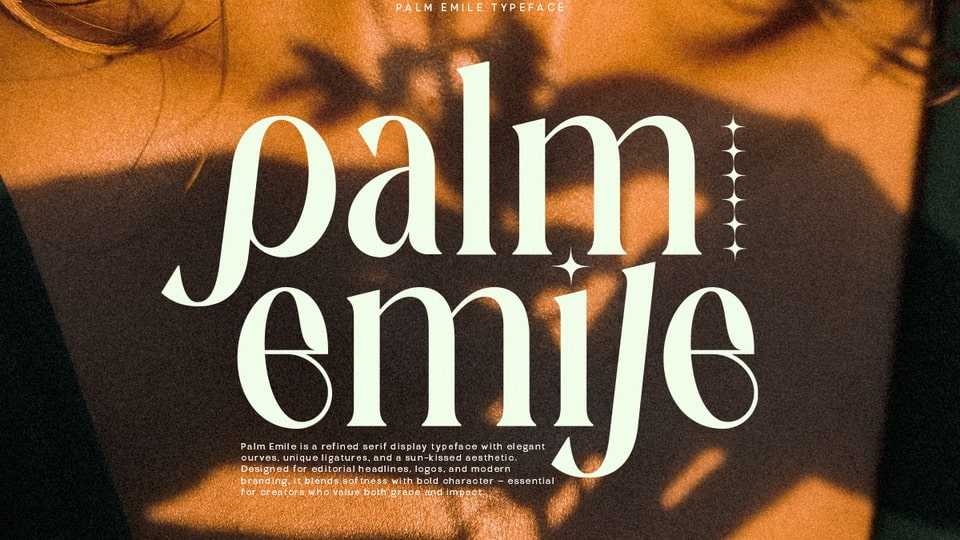
Download Palm Emile font, a refined serif display typeface that blends classic sophistication with modern charm, featuring elegant curves, unique ligatures, and a sun-kissed aesthetic.
Designer: Neotype